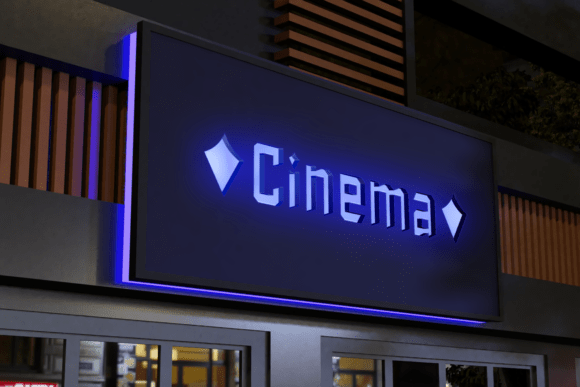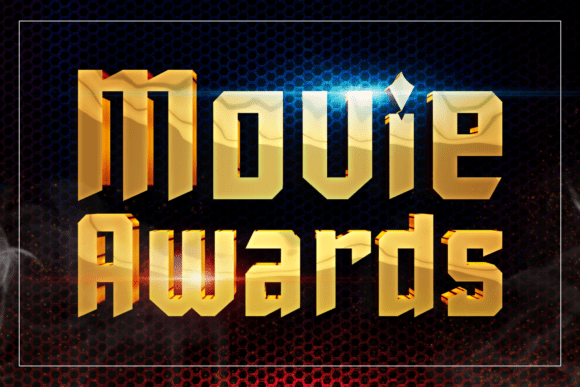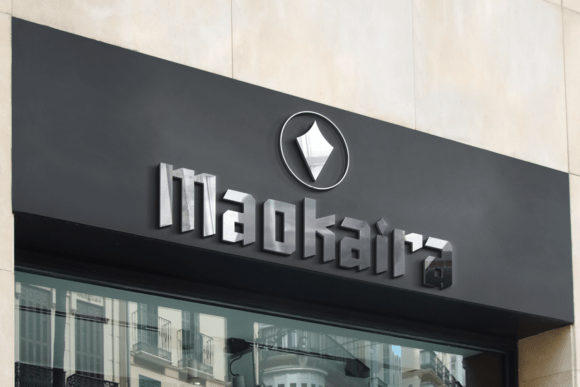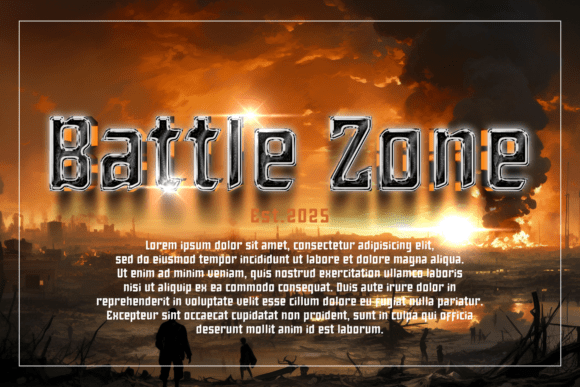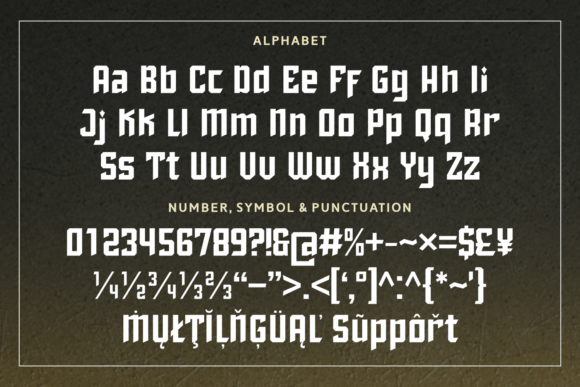
The Perfect Blend of Elegance and Whimsy
Imagine you’re brainstorming ideas for a sports documentary, and suddenly, a burst of creativity hits you. You envision a title sequence that’s nothing short of breathtaking, with the words dancing across the screen in perfect harmony. This is where the Amazing Action Font comes in – a contemporary typeface that shines bright, elevating your design to new heights.
This versatile font is more than just a pretty face; it’s a powerful tool for designers who crave a touch of sophistication in their work. Whether you’re crafting a movie title font, creating a branding asset, or designing a graphic for a dynamic video, the Amazing Action Font is sure to make a statement. Its unique blend of elegance and whimsy makes it the perfect choice for designers who want to add a hint of magic to their projects.
Amazing Action Font Key Features
- Unique Characteristics:
- Highly customizable with advanced OpenType features
- Extensive language support, including Latin, Cyrillic, and Greek scripts
- Special effects, such as gradient and texture fills
Amazing Action Font Review
Overall, I think the Amazing Action Font is a solid choice for those looking for a bold, eye-catching font. ✨ It’s definitely attention-grabbing and can add a lot of energy to your designs. The font’s bold lines and angles give it a dynamic feel that’s perfect for action-packed themes, sports, or adventure-based brands.
The Amazing Action Font also has a wide range of versatility, ✨ making it suitable for various design applications, from logos and headlines to body text and even signage. I appreciate that the font includes multiple weights and styles, allowing for a high level of customization.
- ⚠️ The font’s boldness can sometimes make it difficult to read, especially in smaller sizes or at a distance.
- ⚠️ Some of the characters may not be perfectly optimized for certain languages or scripts, which can lead to layout issues.
Despite these limitations, I think the Amazing Action Font is a great addition to any designer’s toolkit. It’s perfect for projects that require a high level of energy and excitement, and the font’s versatility makes it easy to work with.
Tips for Getting the Most Out of Amazing Action Font
For optimal results, use Amazing Action Font in bold or italic styles to emphasize key points.
Pair Amazing Action Font with a clean and simple background to let the font be the focal point.
Amazing Action Font is ideal for:
Creating attention-grabbing headlines and titles.
Designing bold and dynamic social media graphics.
Adding a touch of edginess to presentations and documents.